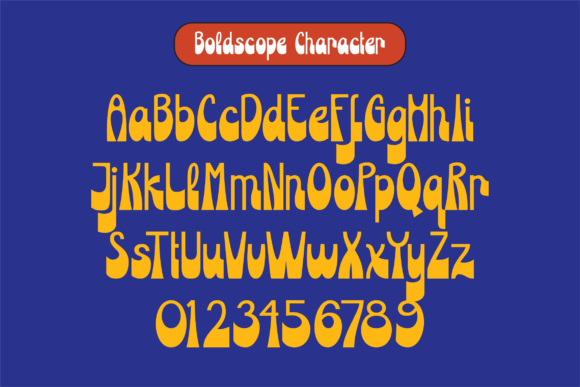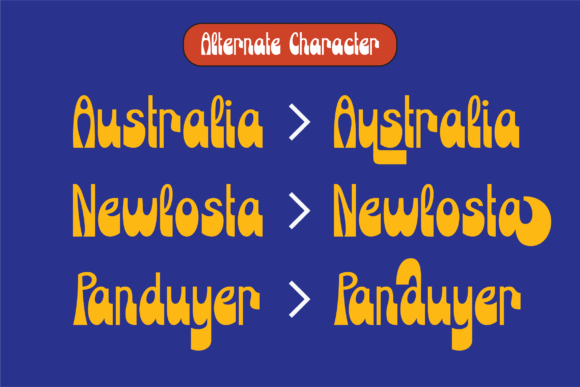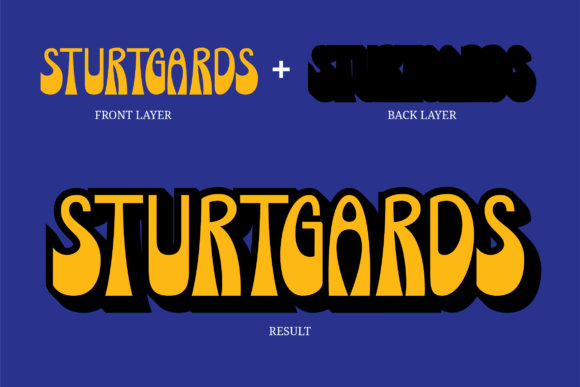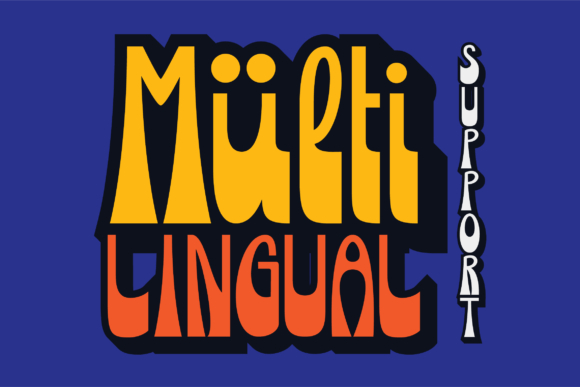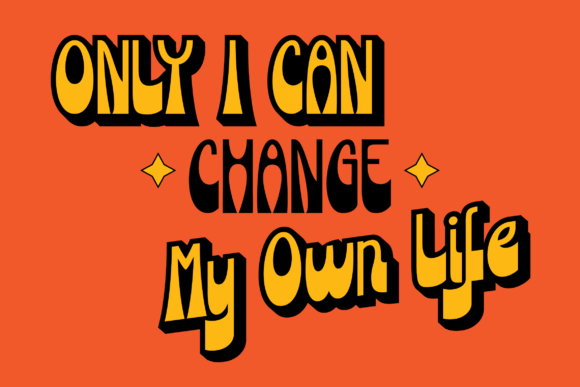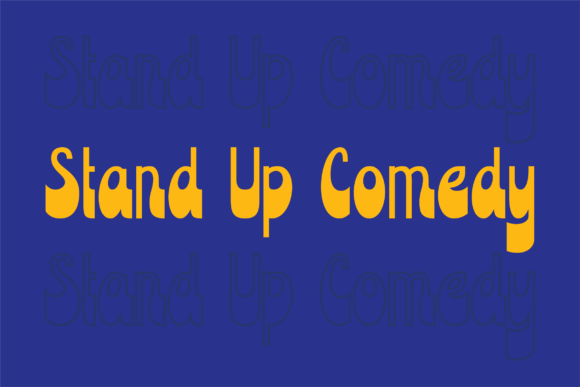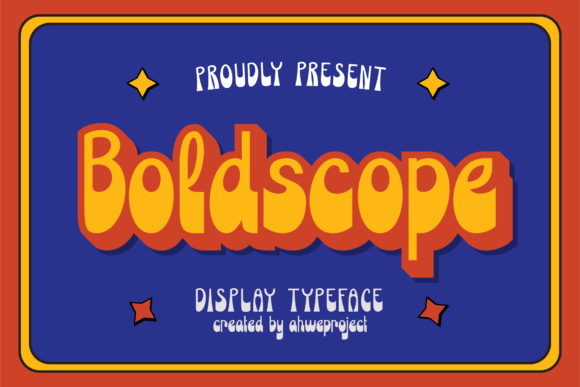
Introducing Boldscope Font: Elevate Your Designs with a Retro-Psychedelic Twist
In the world of typography, fonts play a crucial role in conveying the tone and aesthetic of a design. Whether you’re a seasoned designer or a crafty DIY enthusiast, having the right font in your arsenal can make all the difference. That’s where Boldscope Font comes in – a fun, retro-psychedelic display font that’s sure to elevate your creations to new heights.
The Boldscope Advantage
Boldscope is more than just a font – it’s an experience. Its unique, retro-psychedelic style is reminiscent of the vibrant, playful graphics of the 1960s and 1970s. With Boldscope, you can add a touch of nostalgia and whimsy to your designs, making it perfect for projects that require a bit of flair. Whether you’re working on a logo, poster, or social media graphic, Boldscope is sure to turn heads.
What Makes Boldscope So Versatile?
No matter the topic or theme, Boldscope Font is an incredible asset to your font library. Its versatility lies in its ability to adapt to various design contexts. Here are just a few examples of how you can use Boldscope:
- Branding and Logos: Create eye-catching logos that stand out from the crowd. Boldscope’s bold, playful style is perfect for businesses that want to make a statement.
- Posters and Flyers: Add a retro touch to your posters and flyers with Boldscope. Its vibrant, psychedelic style is sure to grab attention and leave a lasting impression.
- Social Media Graphics: Elevate your social media presence with Boldscope. Use it to create engaging graphics, headers, and captions that showcase your brand’s personality.
- Crafting and DIY Projects: Add a personal touch to your crafting and DIY projects with Boldscope. Use it to create custom titles, labels, and decorations that showcase your creativity.
Key Features of Boldscope Font
So, what makes Boldscope Font so special? Here are some of its key features:
- Retro-Psychedelic Style: Boldscope’s unique style is inspired by the vibrant graphics of the 1960s and 1970s.
- Bold and Playful: Boldscope is a display font that’s designed to make a statement. Its bold, playful style is perfect for headlines, titles, and captions.
- Highly Versatile: Boldscope can be used in various design contexts, from branding and logos to posters, flyers, and social media graphics.
Tips for Using Boldscope Font
Here are some tips for getting the most out of Boldscope Font:
- Experiment with Colors: Boldscope looks great in bright, bold colors. Experiment with different color combinations to find the perfect look for your design.
- Play with Texture: Add texture to your design with Boldscope. Use it with different textures, patterns, and backgrounds to create a unique look.
- Mix and Match: Don’t be afraid to mix and match Boldscope with other fonts. Use it as a headline font, and pair it with a simpler font for body text.
In conclusion, Boldscope Font is an incredible asset to any designer’s or crafter’s font library. Its unique, retro-psychedelic style is sure to elevate your creations and add a touch of whimsy to your designs. With its versatility, bold and playful style, and ease of use, Boldscope is the perfect font for anyone looking to make a statement. So why wait? Download Boldscope Font today and start creating!